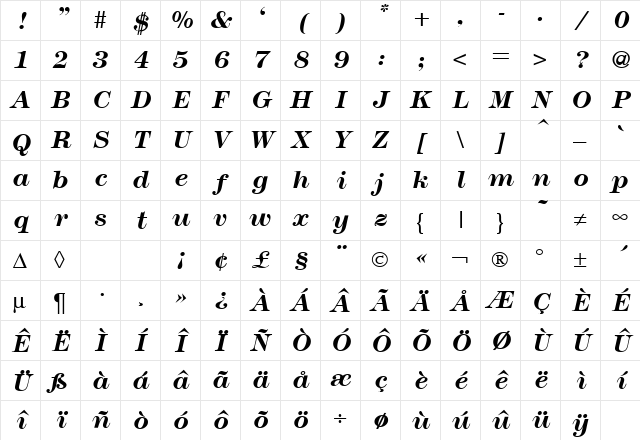
Modern438 BoldItalic
Complete Modern438 BoldItalic glyph index. Displaying only characters natively supported by Modern438 BoldItalic font.
Design Context for Modern438
Modern438 is a composed and adaptable typeface that performs quietly and consistently across a wide range of design contexts. The slanted form adds forward momentum and visual energy. Its bold stroke weight gives it real presence on the page.
Pro Tip: Use Modern438 for emphasis, pull quotes, and subheadings where its slanted energy can add rhythm to the layout.